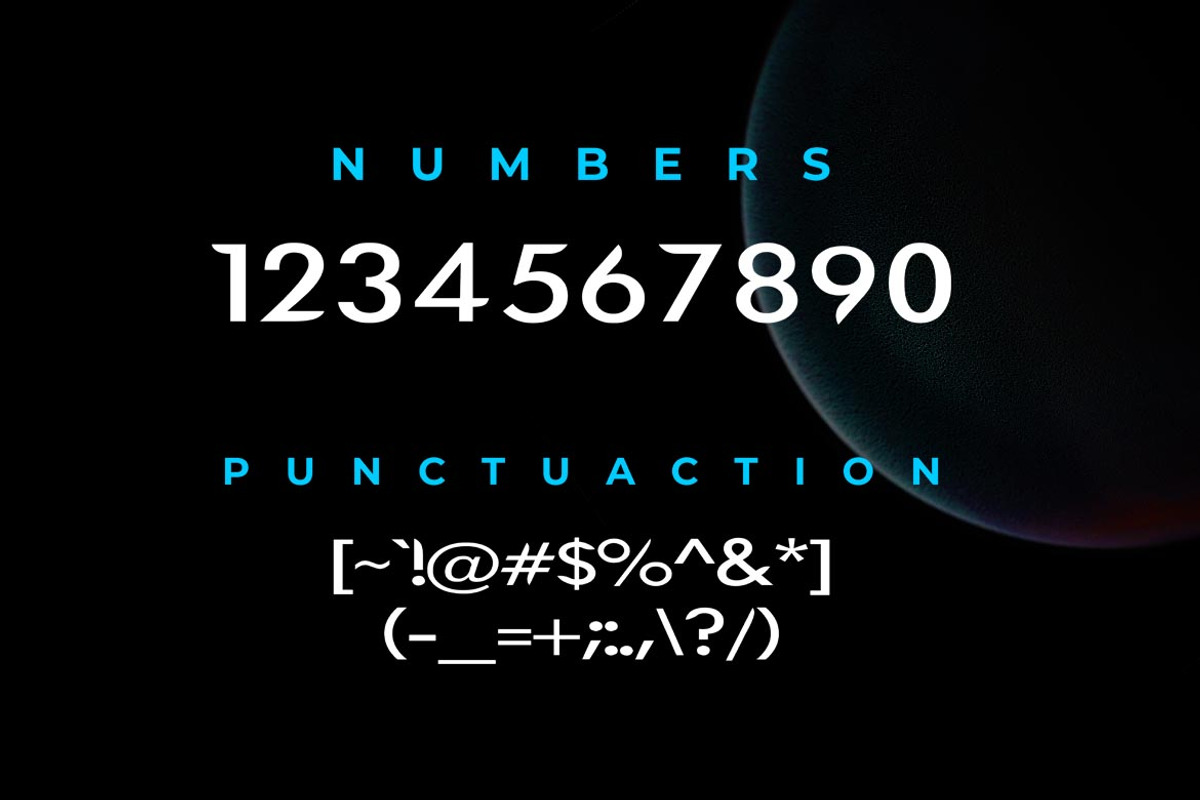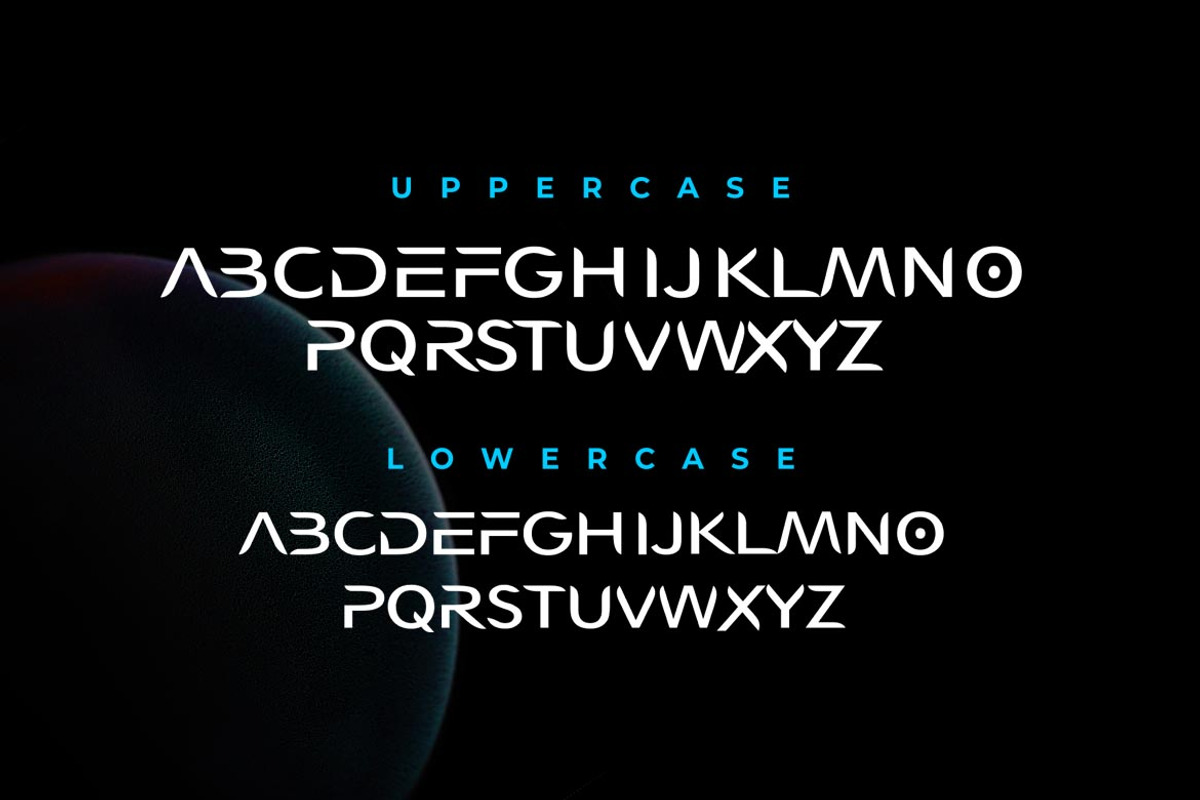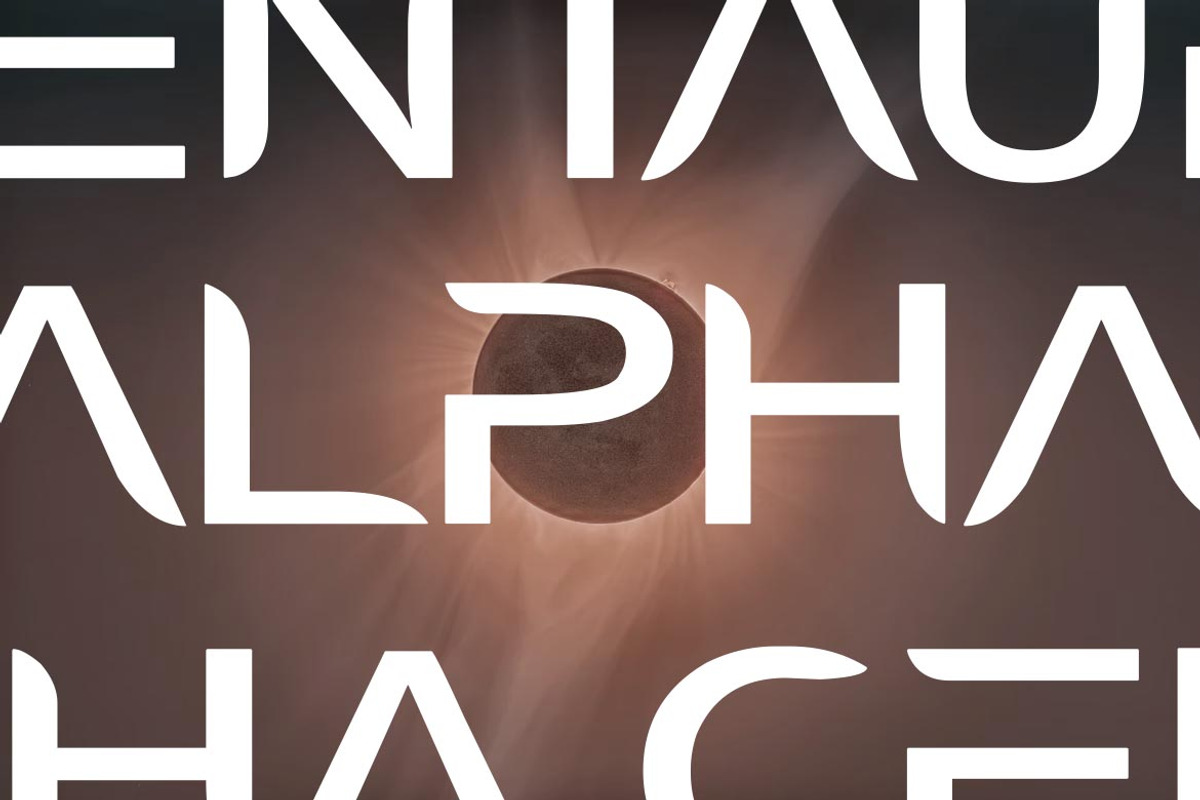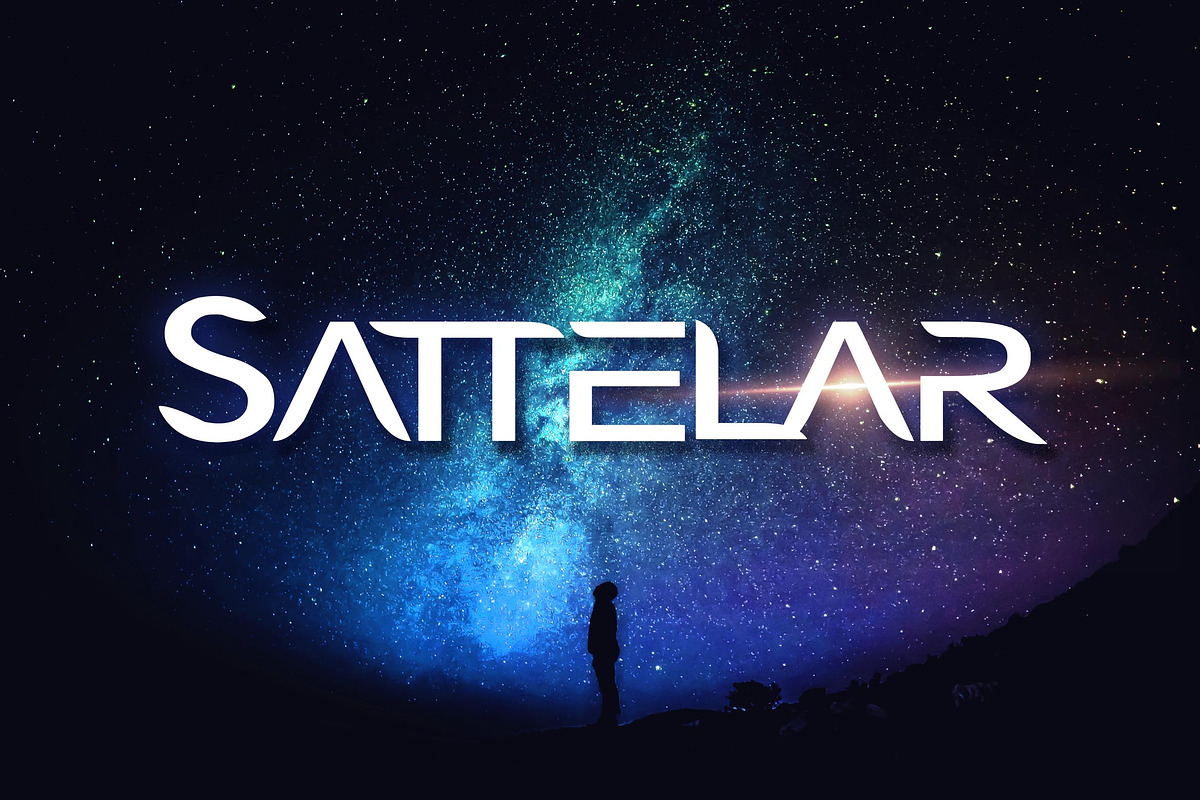
Sattelar - Modern futuristic scifi f
Introducing Sattelar - Modern futuristic scifi font
Introduce my new font called Sattelar. Sattelaris a futuristic font inspired by science fiction, movies and books. This font is suitable for various purpose such as movies, posters, logos, cover books, webfont and any modern purposes.